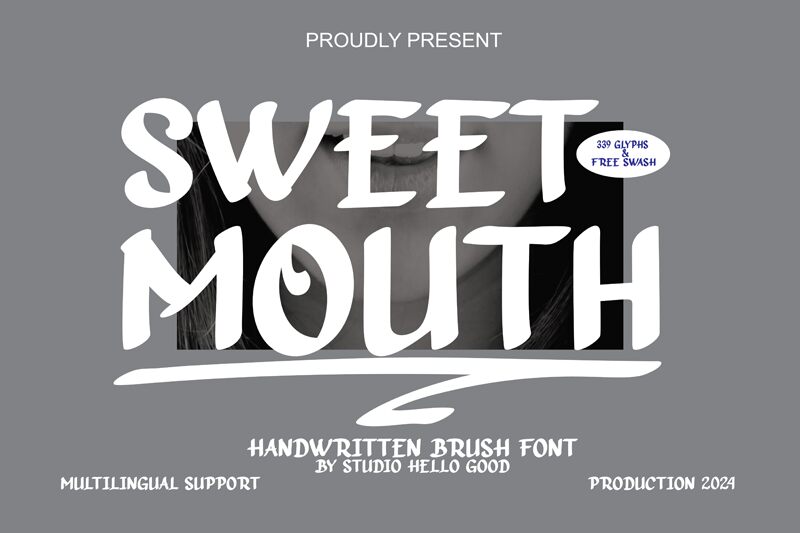
Sweet Mouth font by Studio Hello Good is a dynamic typeface designed to add a modern and energetic feel to your designs. This free font is expressive and carries a handwritten style that is both informal and contemporary. Created with bold brush strokes, Sweet Mouth embodies a personalized touch perfect for projects that require a unique and engaging appearance.
Sweet Mouth serves multiple purposes, making it an excellent choice for greeting cards, branding, logos, packaging designs, social media graphics, and posters. Its informal yet engaging personality is equally suitable for editorial use in casual magazines and blog headers.